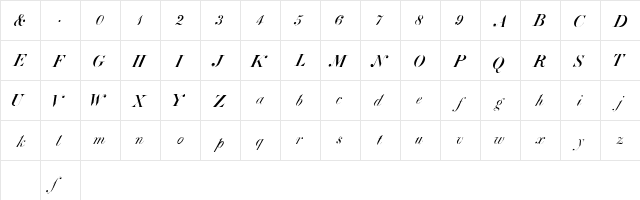
Atlas Italic HPLHS
Design Context for Atlas Italic Typeface
Atlas Italic takes a measured approach to typography — its balanced proportions and neutral character make it a reliable workhorse for both digital and print work. Its italic angle brings a sense of urgency and motion to the letterforms.
Pro Tip: Use Atlas Italic for emphasis, pull quotes, and subheadings where its slanted energy can add rhythm to the layout.